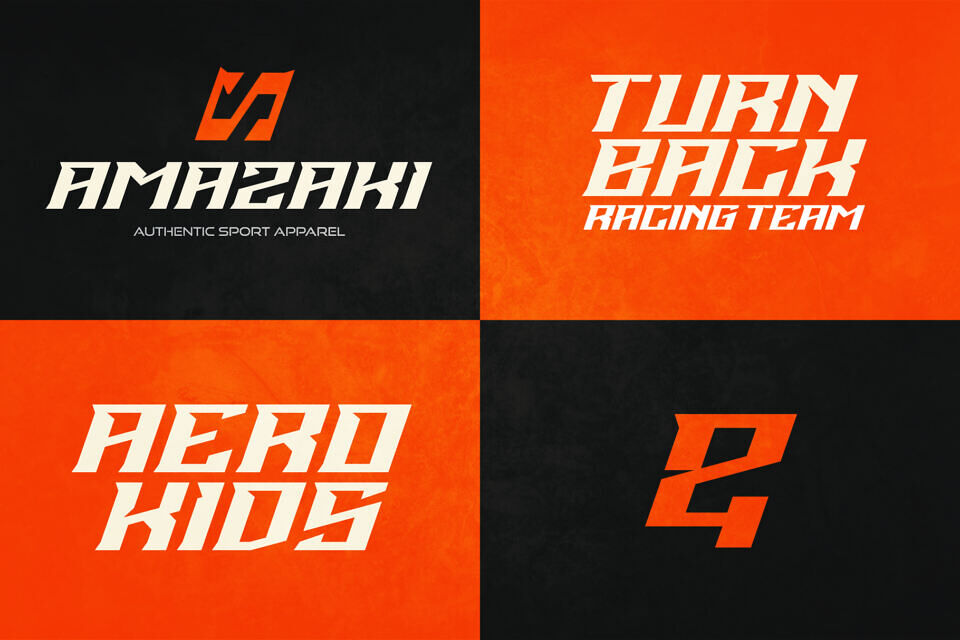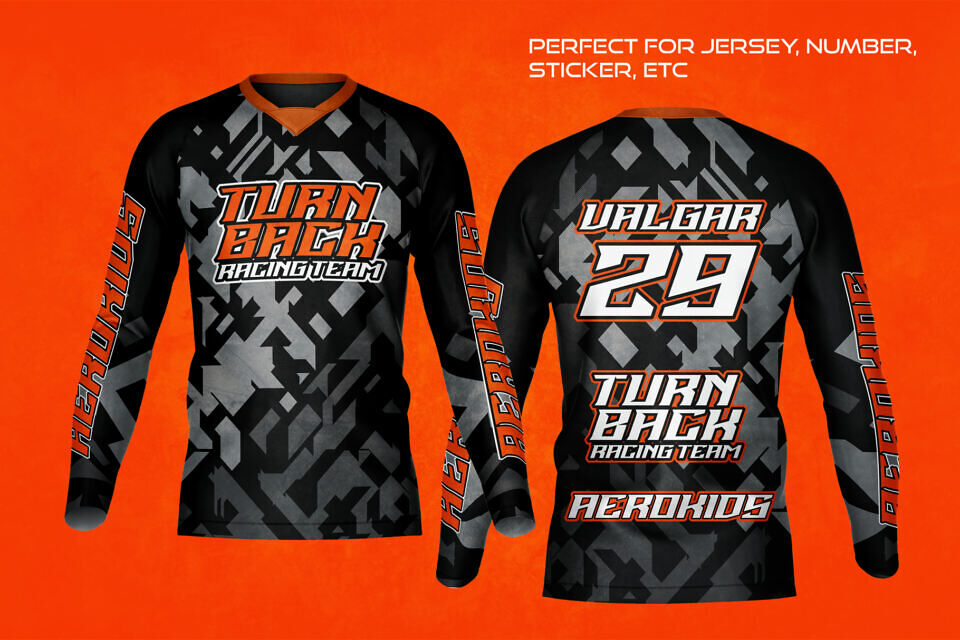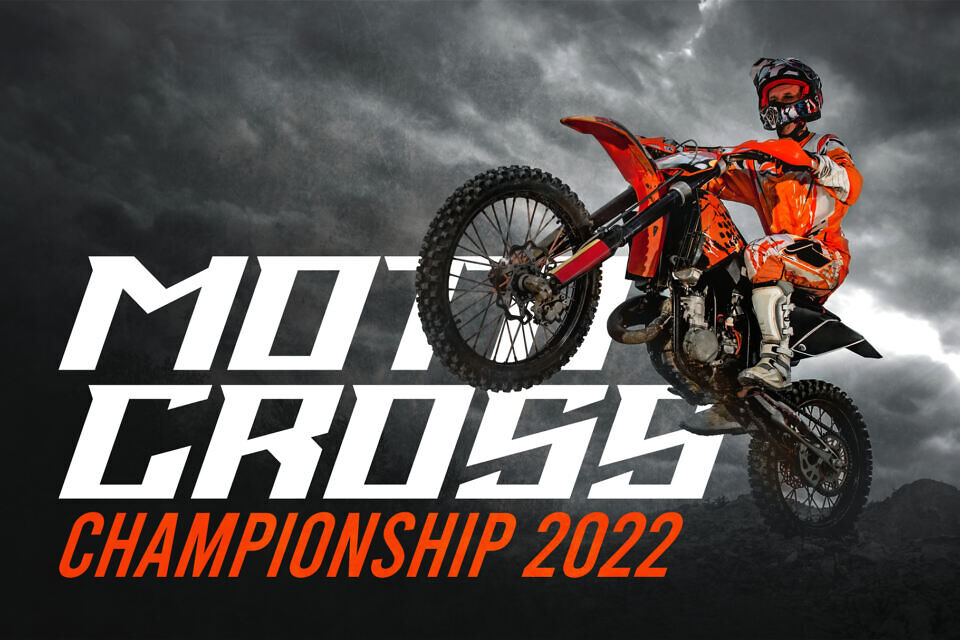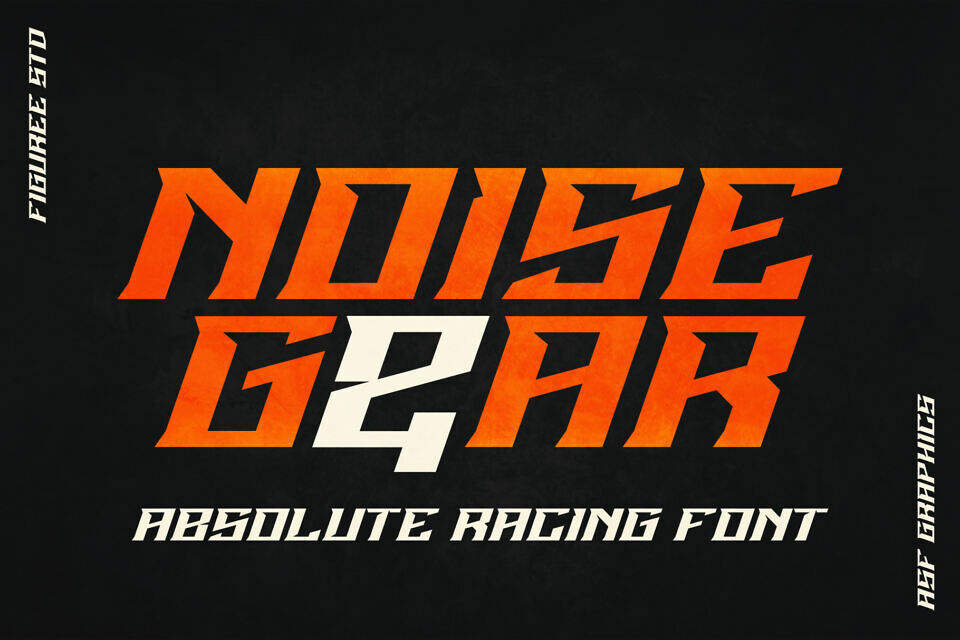
Noise Gear Font
Noise Gear is Powerful Racing Theme Font. The font is ready to be used for your racing sports or automotive-related projects.
Built to be perfect for headlines, jerseys, logos, branding, posters, packaging, advertising, and much more.
Designed by: Figuree Studio